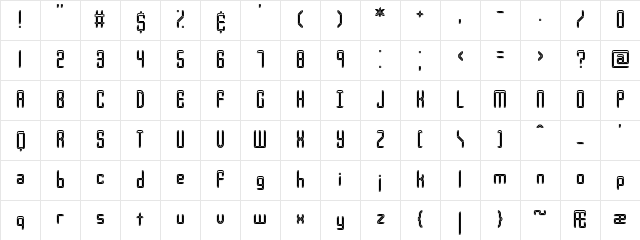
Your Complex I BRK Normal
Design Context for Your Complex I BRK
Your Complex I BRK is a composed and adaptable typeface that performs quietly and consistently across a wide range of design contexts.